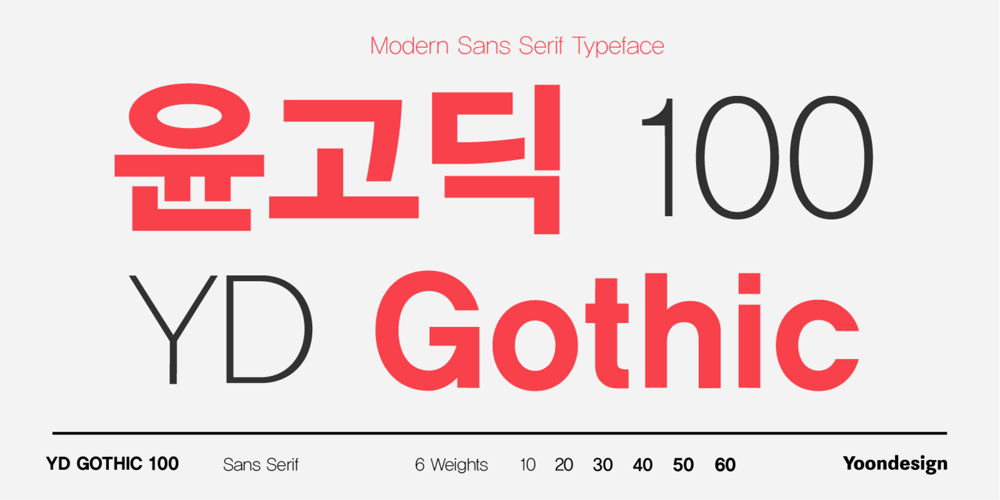
YD Gothic 100
YD Gothic 100 font
YD Gothic 100 Font Family was designed by Yoon Design Team and published by Yoon Design. YD Gothic 100 contains 6 styles and family package options. YD Gothic100 Pro family is Korean fonts and is the most common font family up to the present in Korea. They are ranked first places in designer preference and customer preference.YD Gothic100 Pro features a clean and legible modern sans serif typeface, while it is monolinear simple structure give it a kind of stable feeling, are functional, clean and minimal. This font family is a modest design that doesn’t feel at all stiff or bland that help to emphasize text or headlines and it has already seen plenty of magazine and book cover action.This font family has 6 weights and also contains traditional Chinese characters.